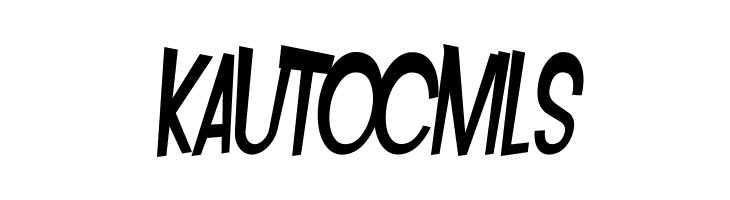
HURLANT CONDENSED ITALIC PERSONAL USE Regular Font
- Font: HURLANT CONDENSED ITALIC PERSONAL USE Regular
A bold, oblique font with a dynamic and modern style.